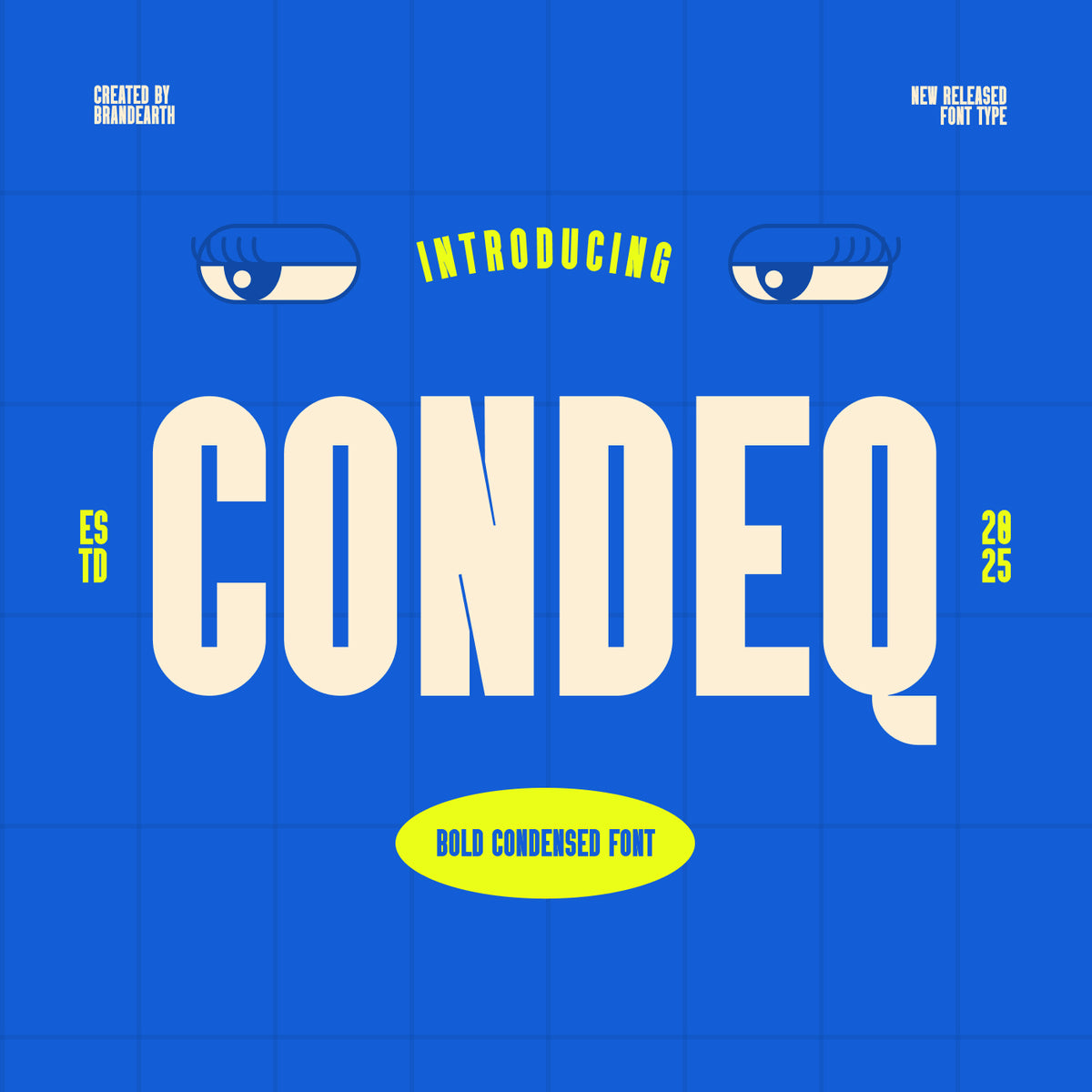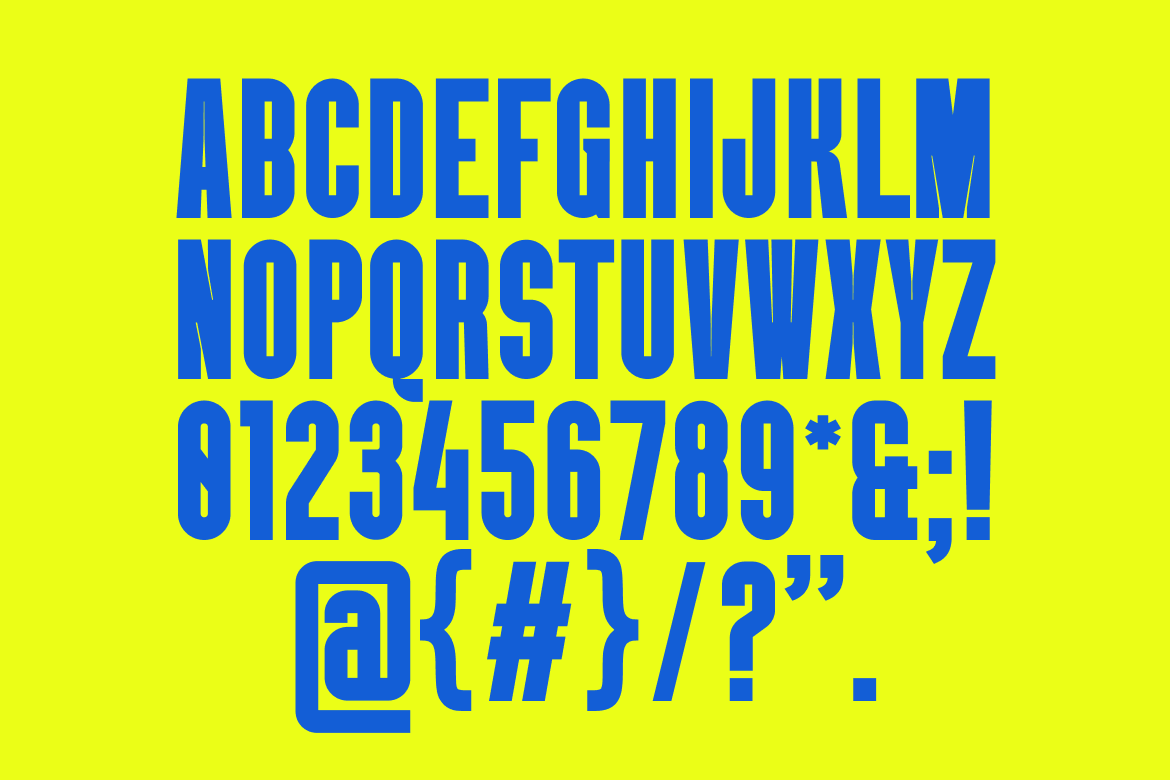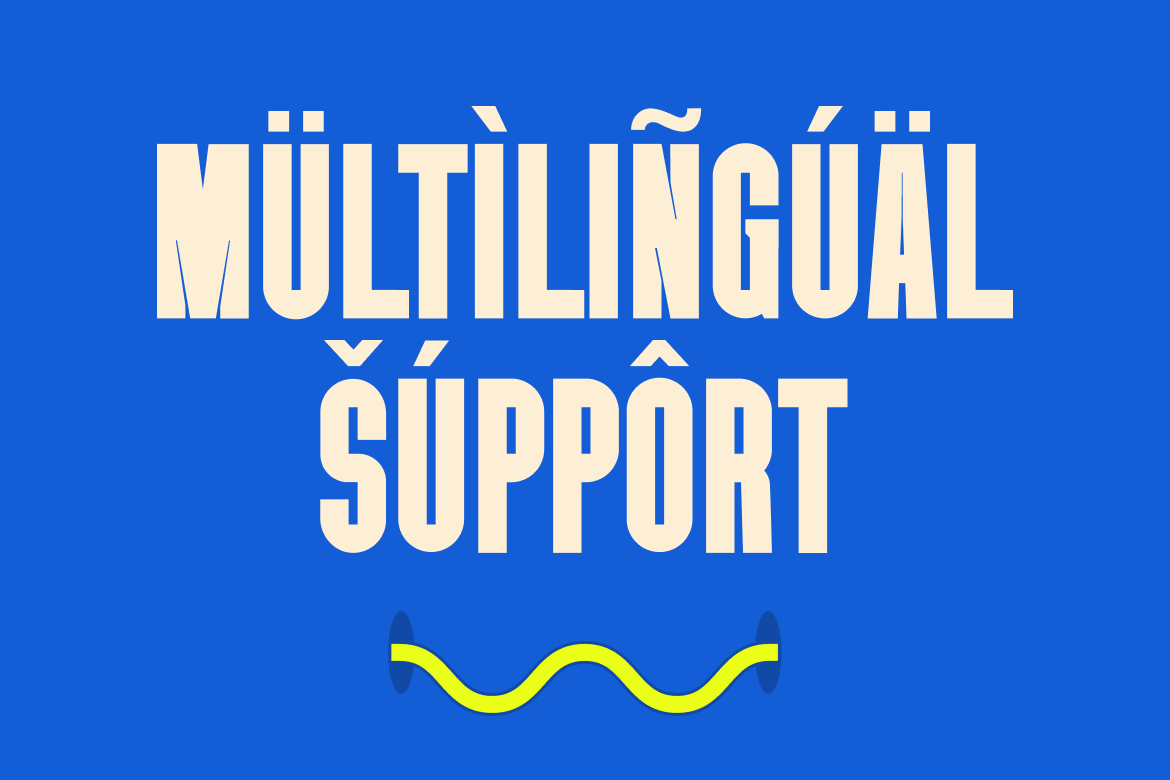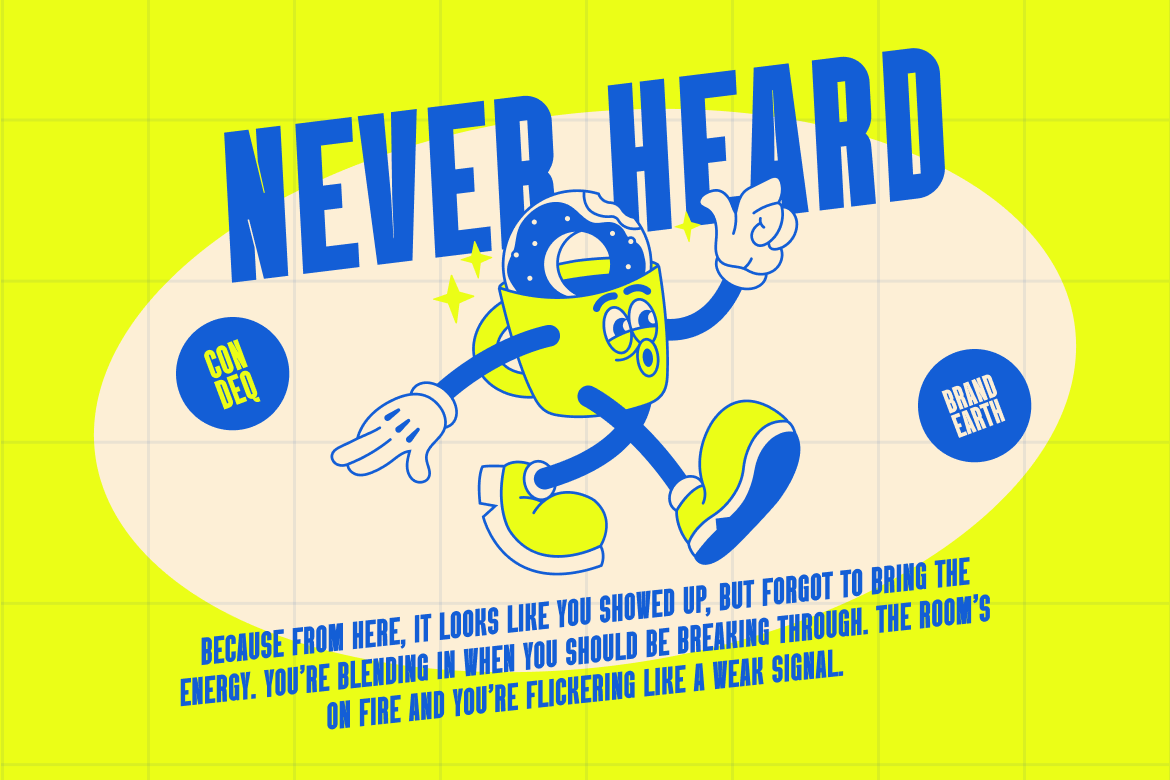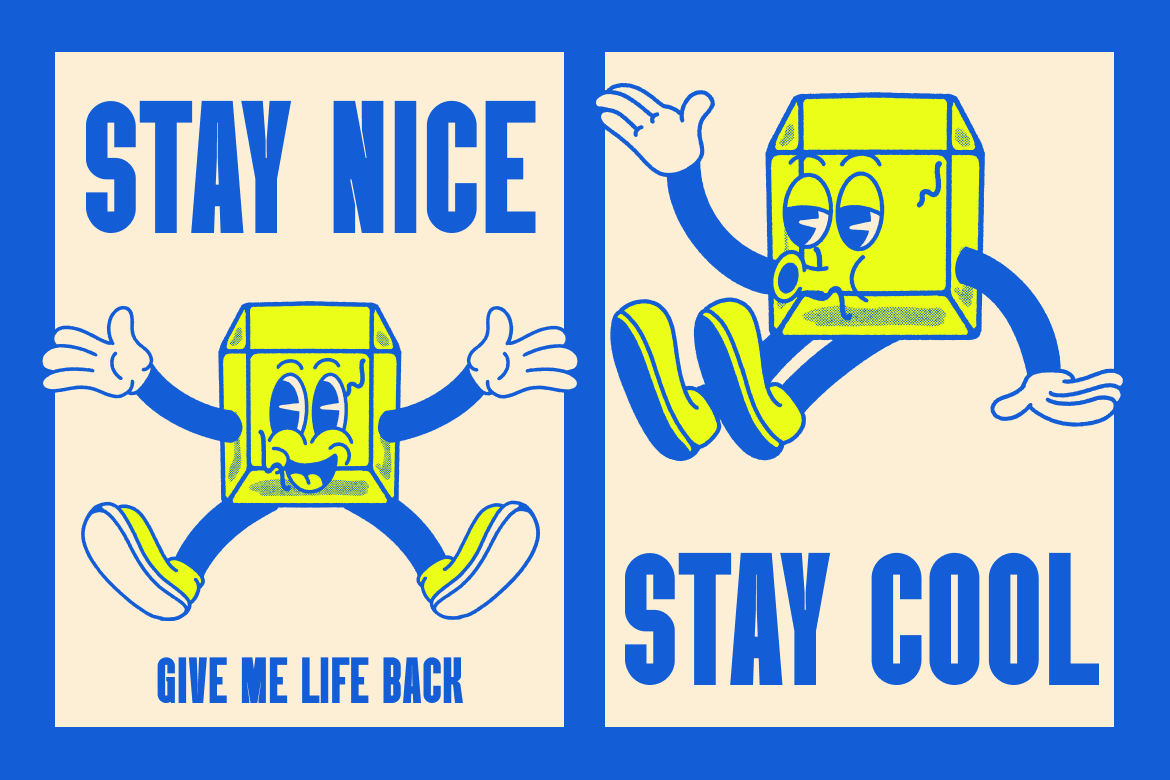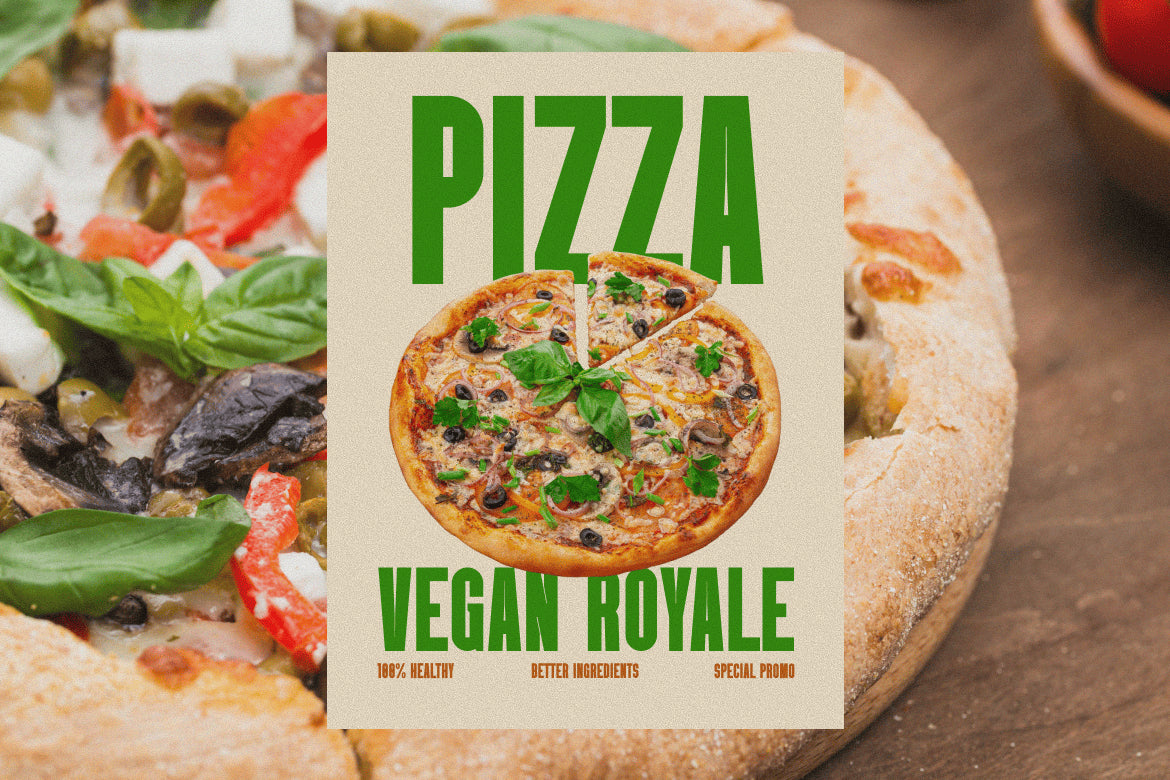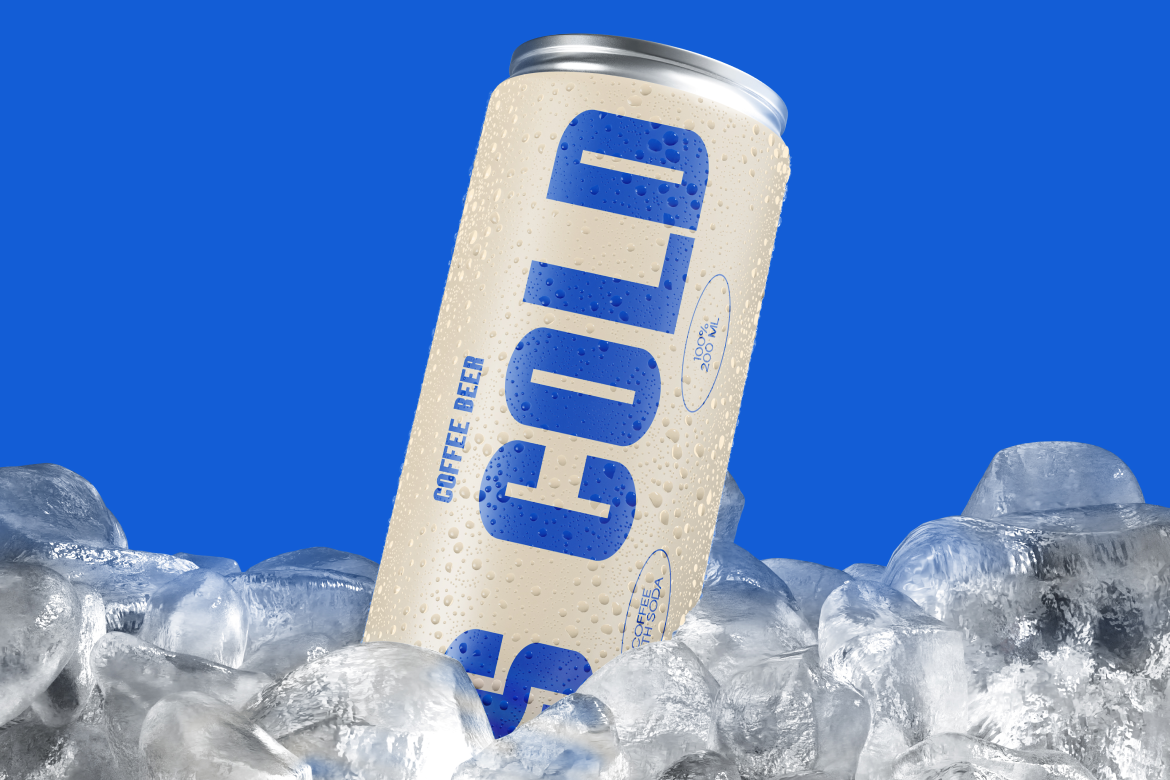
Condeq Bold Condensed Font
Condeq is a bold condensed display font designed to make a powerful visual impact. With its narrow proportions and heavy weight, Condeq offers a clean yet assertive look, ideal for designs that demand attention. This all-caps typeface is perfect for posters, editorials, branding, and sports-themed graphics where boldness is key. Whether used in print media or digital campaigns, Condeq ensures clarity and dominance in any layout.
Condeq Bold Condensed Font is a bold, condensed display typeface with narrow proportions and a heavy weight. It includes uppercase and lowercase characters, ligatures and alternates, numerals, and punctuation, with multilingual support, available in TTF, OTF, and WOFF formats.